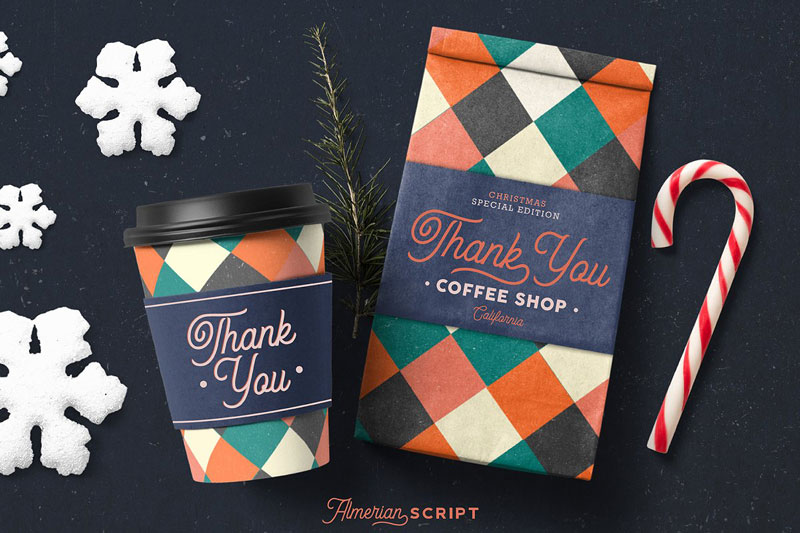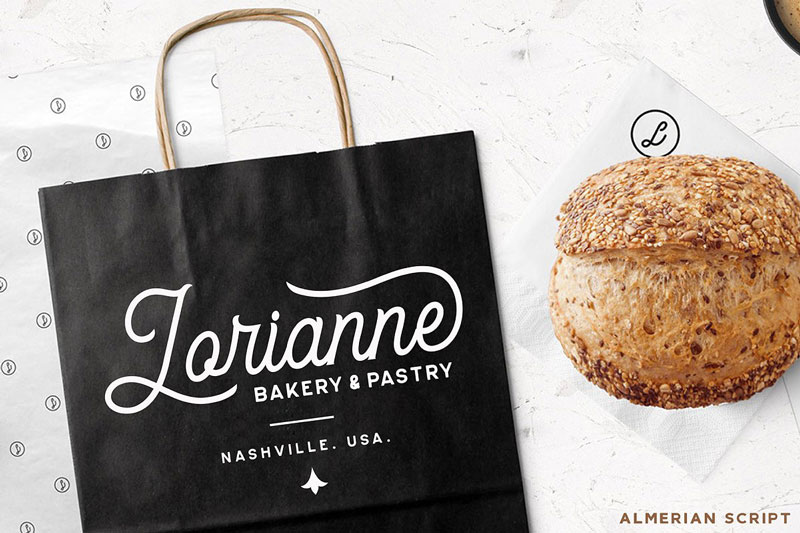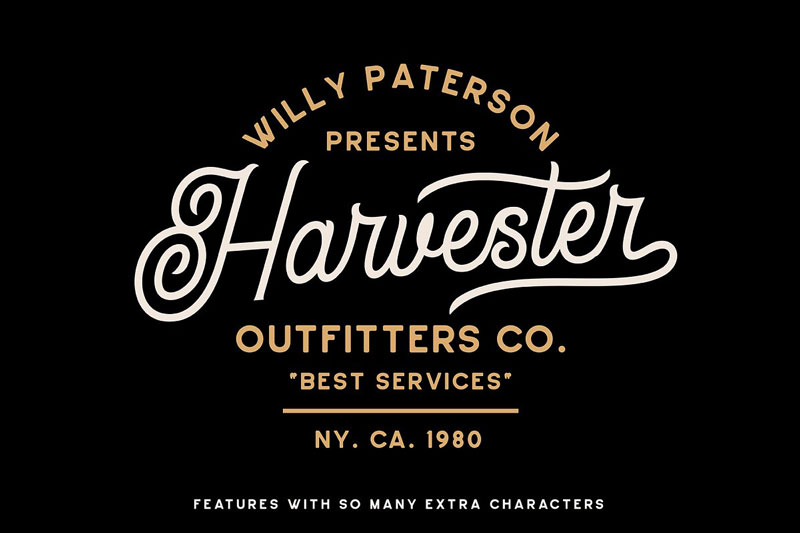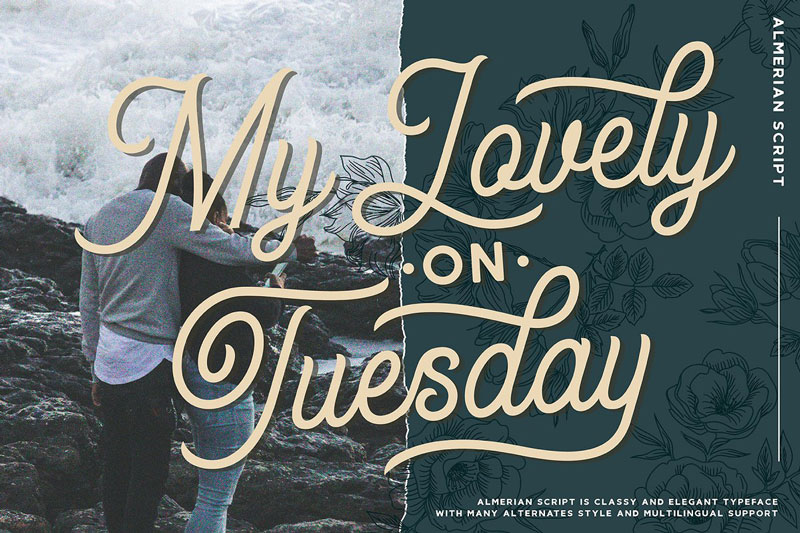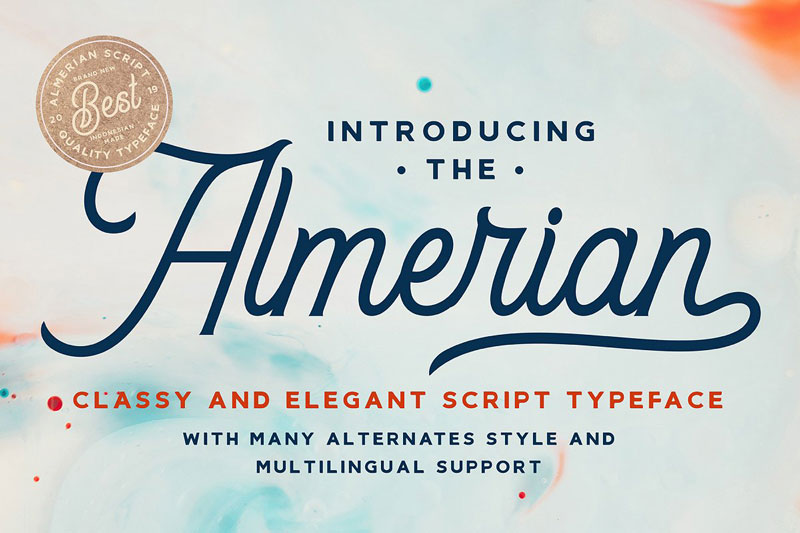
Almerian Script Font
Almerian Script was made with classic taste, handmade-touch, and combine with moderns script, the combination of those styles delivered us to the beauty and stylish of a typeface. With ‘OpenType feature’ this font gives you so many options to create something unique. mix and match.Almerian Script with a bunch of alternative characters to fit your project. with the result that, The Hometown Typeface is a great choice for your logo design, clothing, Posters, Vintage, Catalogue, Logotype, Hand-Lettering or Retro Design, and many more.
Almerian Script comes with uppercase, lowercase, numerals, punctuations and so many variations on each character include OpenType alternates and multilingual support. This font is perfect for the design that you need. Also checkout Practish Font family.